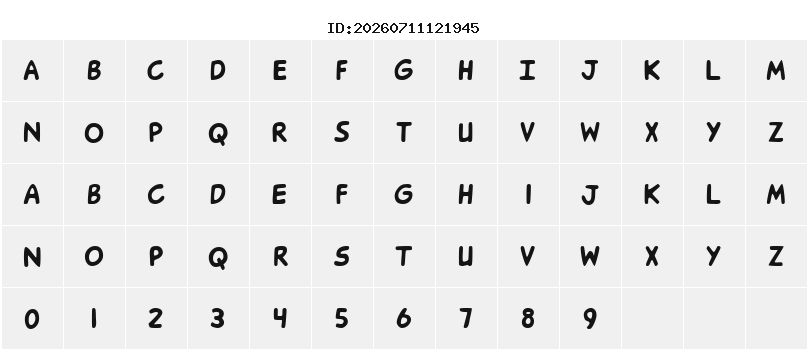
MarvelScript Preview
• Font Name: MarvelScript
• Full Font Name: MarvelScript
About MarvelScript.ttf
MarvelScript.ttf is a modern, elegant sans-serif font designed for ultimate readability and visual harmony. Perfect for branding, headlines, web design, and print materials.